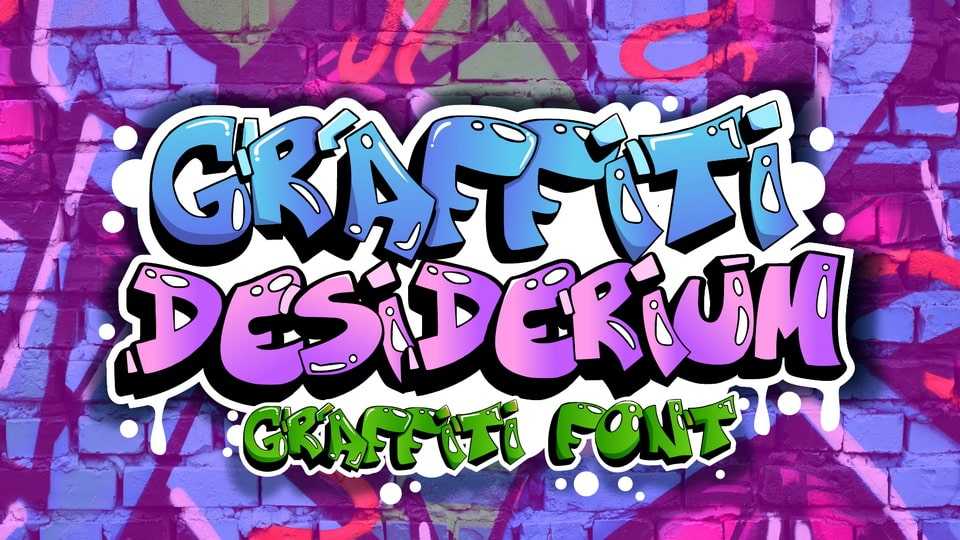
Desiree Font › Fontesk – Download Grátis
Download Desiree font, a bold 3D display typeface inspired by graffiti and street art. Desiree font is perfect for branding, packaging, logo, wall art, prints, posters, comics and so on.
Designer: Desiree Albarran